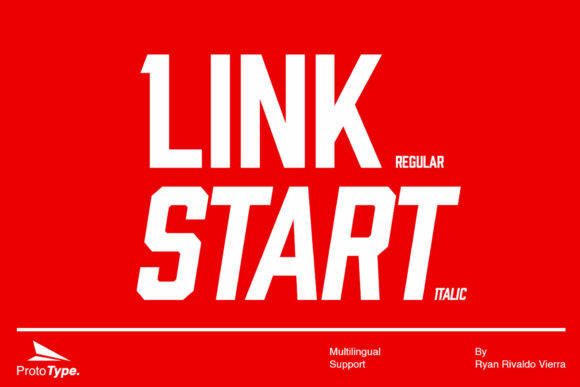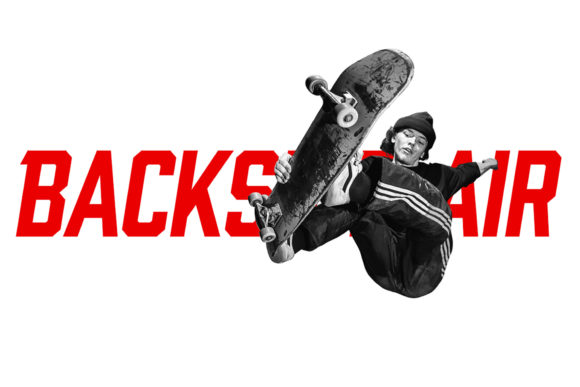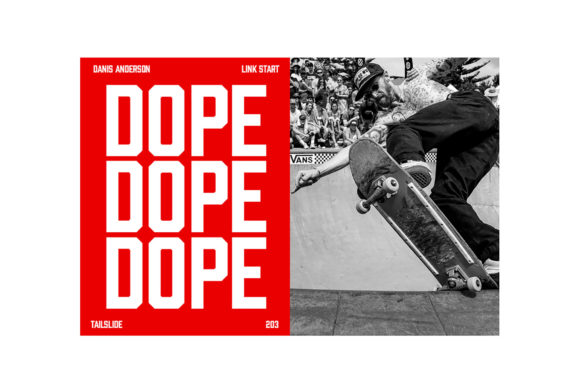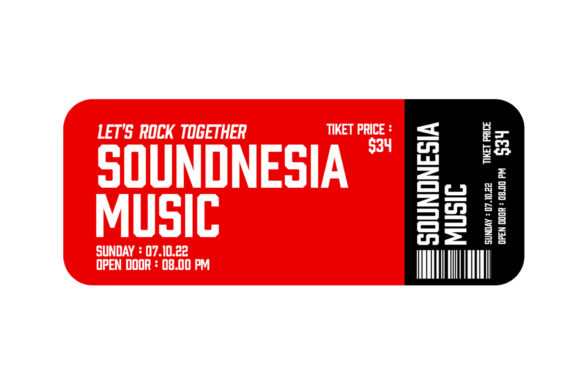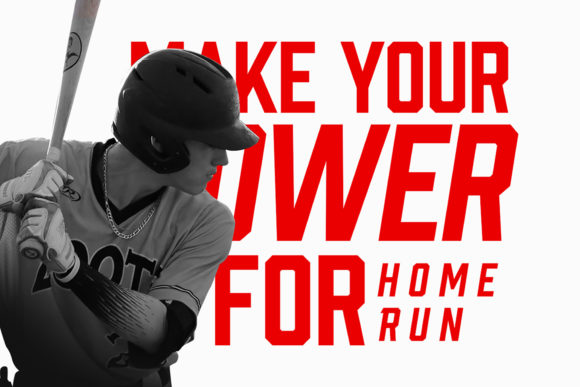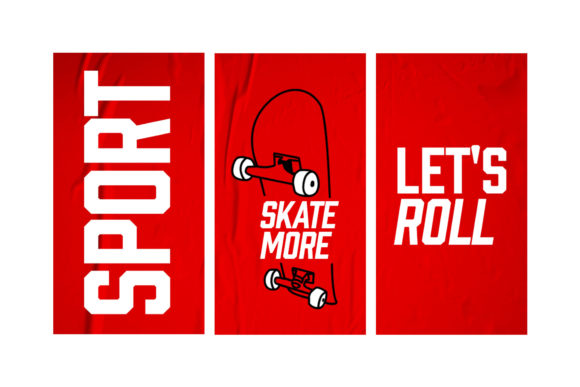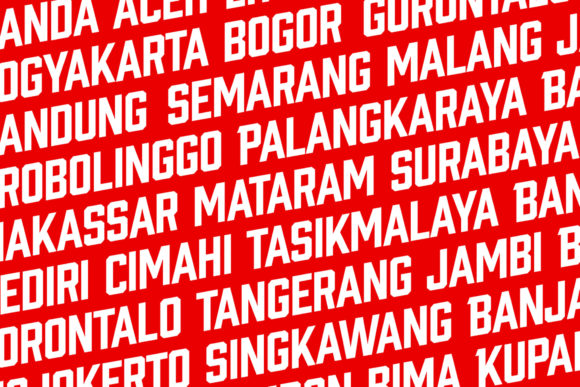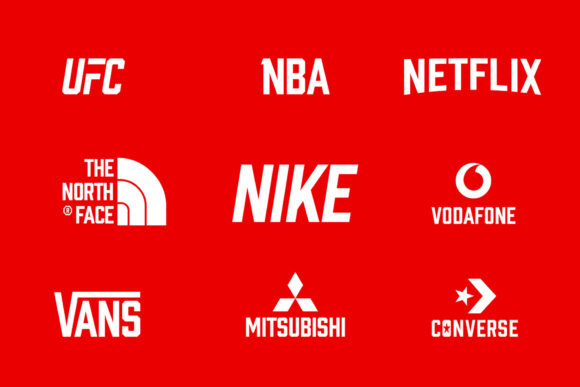
Link Start Font
Link Start is a cool, thick lettered and modern slab serif font. Employ it to any design related to speed, power or sports and you will be amazed by the final results.